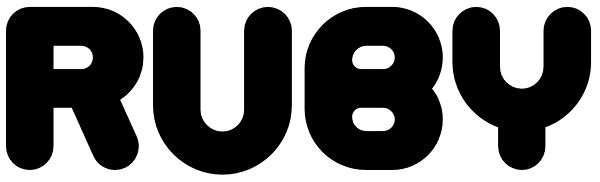
Ruby
Ruby is a poster font with proud geometry and rounded terminals. With its roots in skateboard graphics it is young, fresh, strong and confident. Ruby comes with two complimentary styles for adding that precious sparkle.
Ruby
Ruby Shines
Ruby Highlight